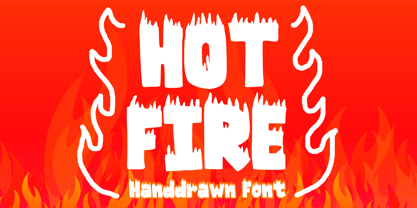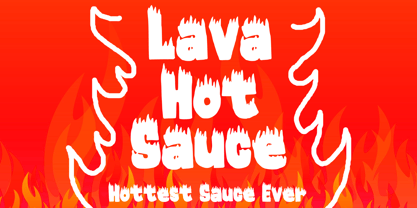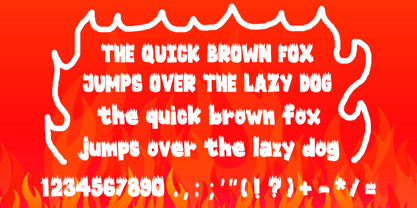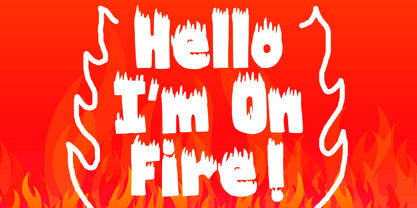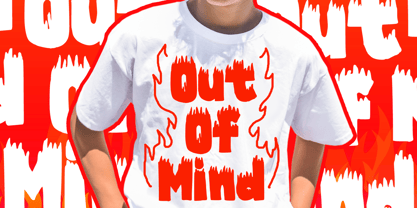
Hot Fire
Die Schriftfamilie Hot Fire wurde von Gabriel Valentinus entworfen und von Mvmet veröffentlicht. Hot Fire enthält 1 Stile. Mehr über diese Familie
Radiate warmth and flair with the Hot Fire font, uniquely characterized by its flame-inspired aesthetics. This dynamic display typeface is the perfect tool to ignite creativity across a myriad of projects, from children’s book illustrations to youthful party paraphernalia. Use it to add an exhilarating touch to t-shirts and other apparel, or to create vibrant greeting cards and stickers. Craft spectacular poster designs and banners that will stand out with a lively and playful edge. With the Hot Fire font, achieve the perfect balance of decorative appeal and joyous energy in every design project you undertake.